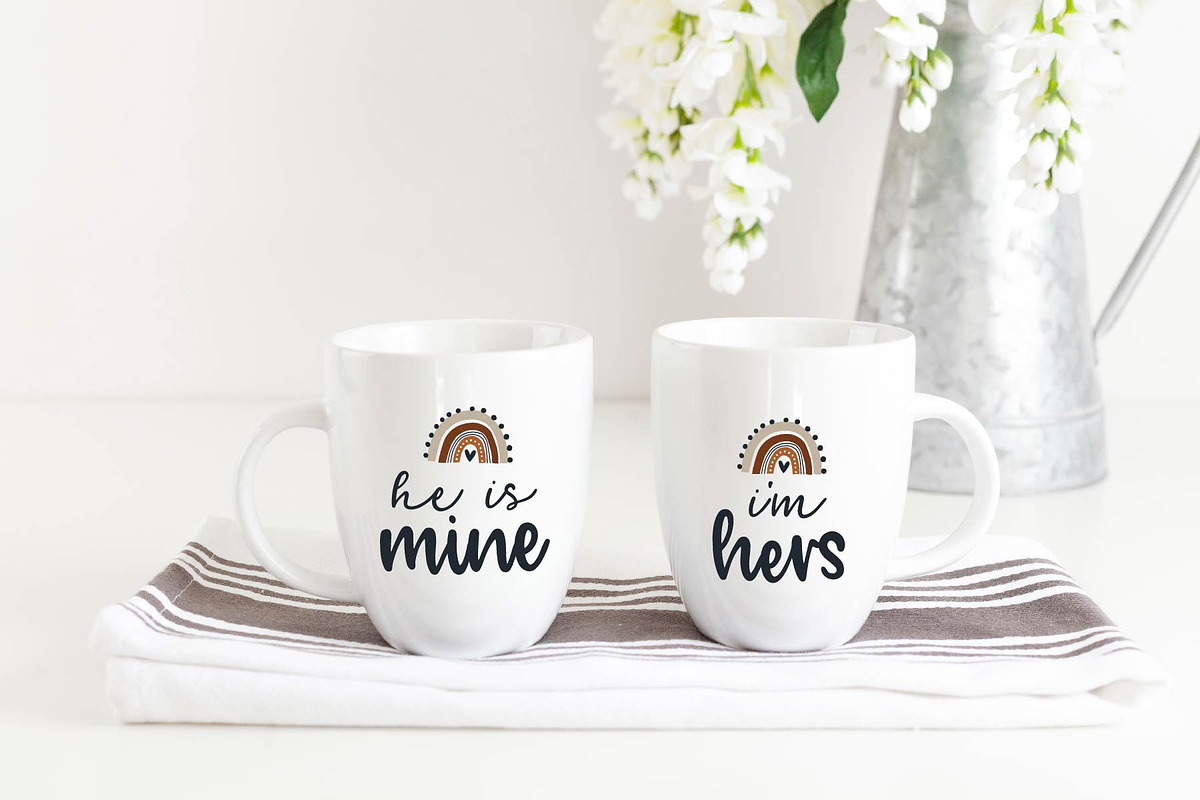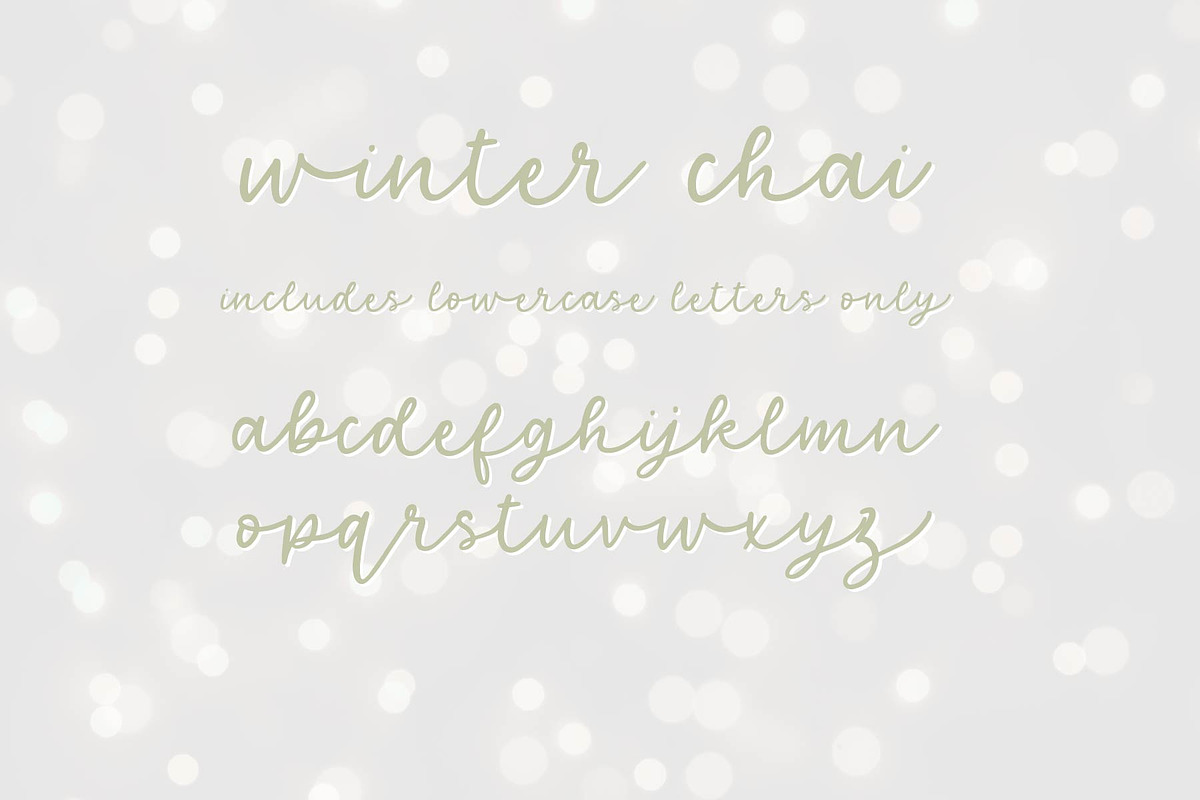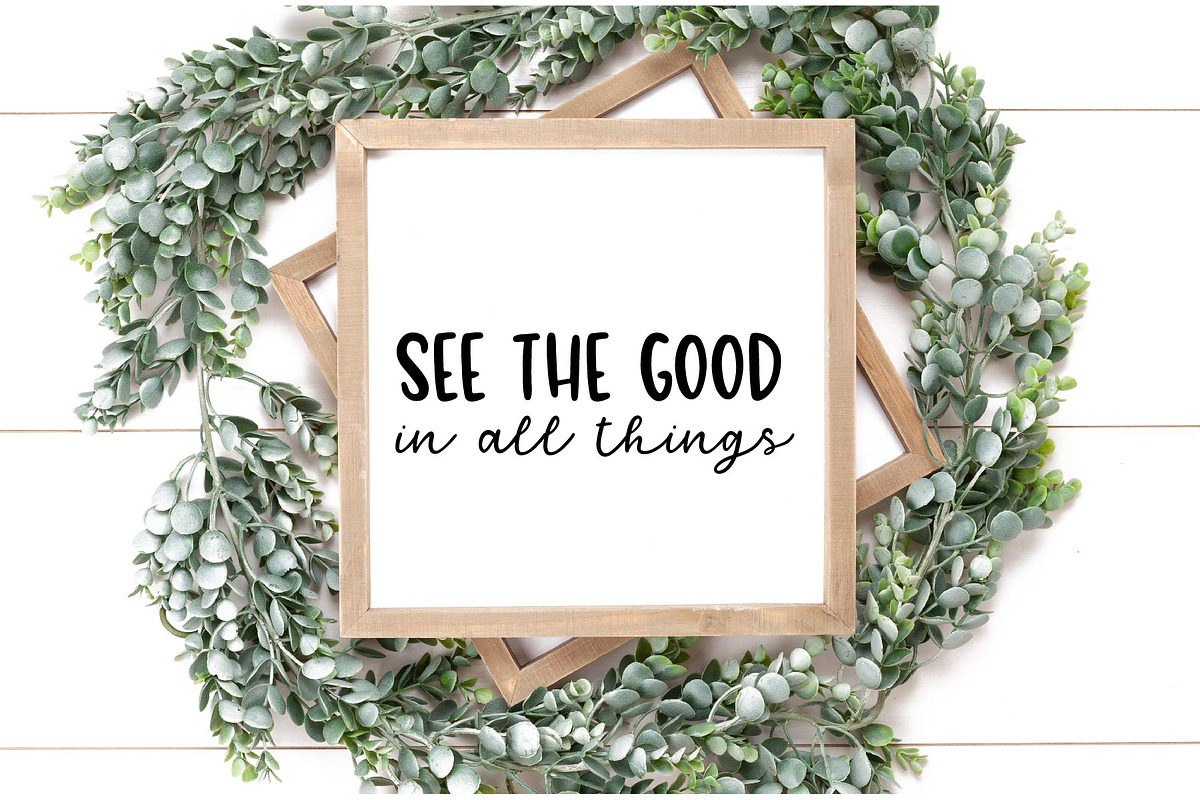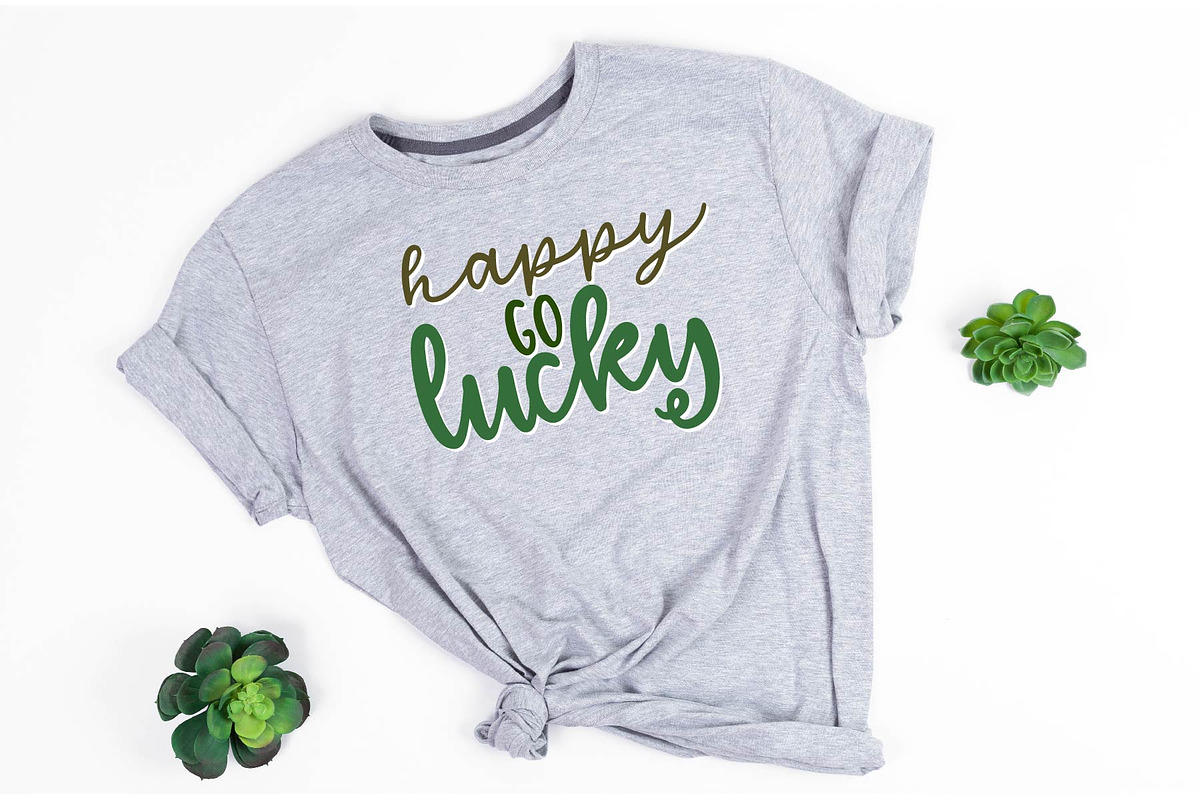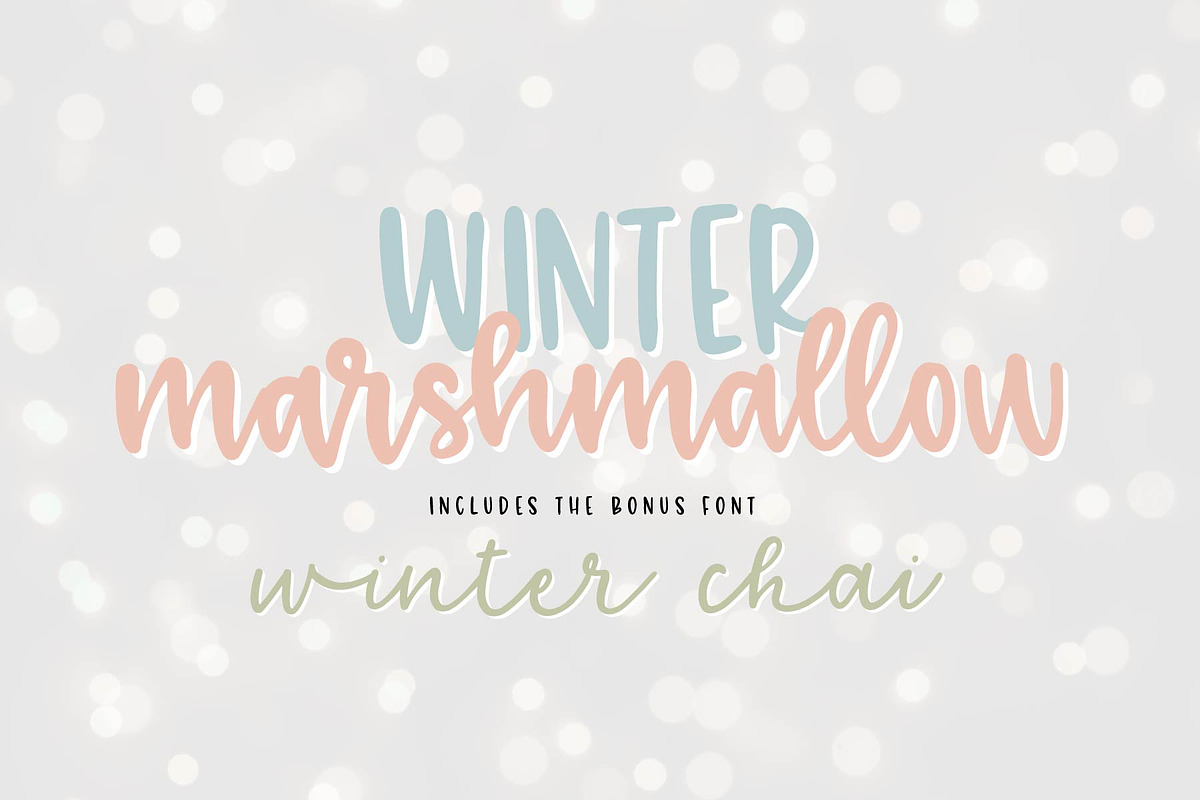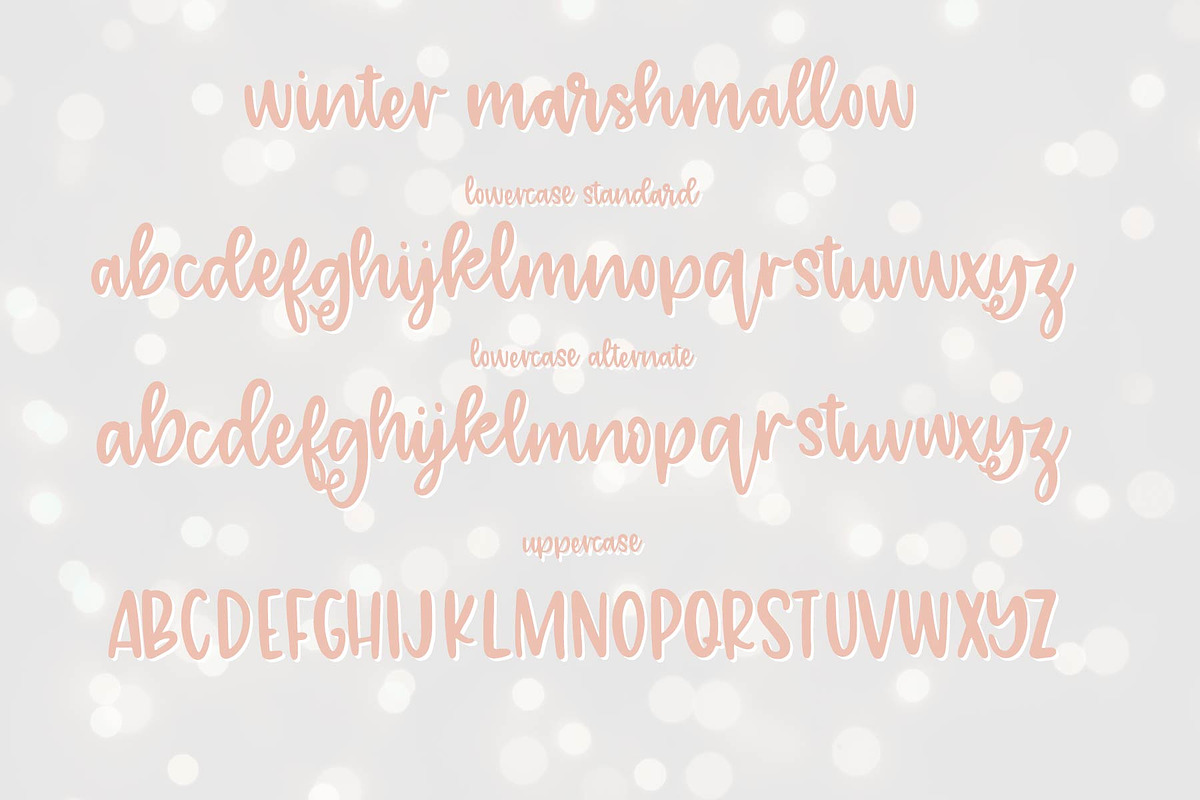
winter marshmallow + winter chai
winter marshmallow + winter chai makes such a lovely duo! the capital letters in winter marshmallow are a perfect sans serif for either script in this duo! winter marshmallow includes upper, alternate, ligatures, lowercase, numbers, accents and punctuation. winter chai is lowercase script only!